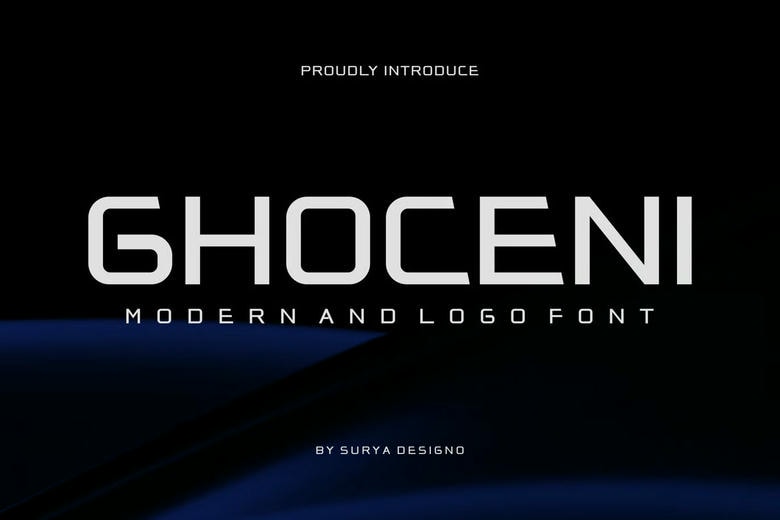
Ghoceni is a bold, modern, and authentic display font. The font is suitable for any branding project like logo,printing, esport, and many more. Outstanding in a wide range of contexts.
Ghoceni Sans Serif Font